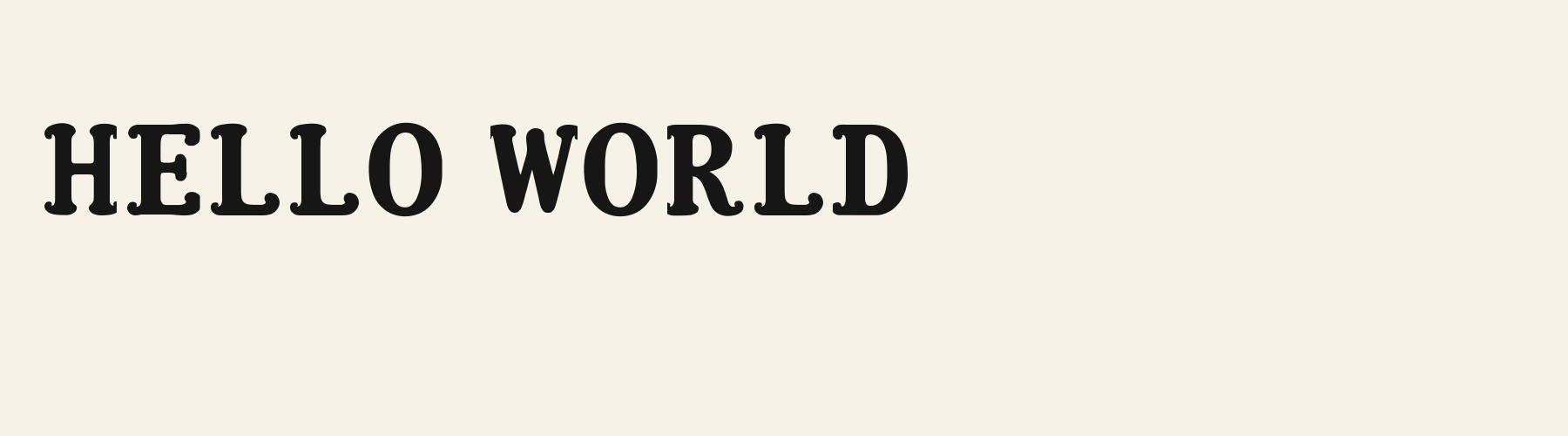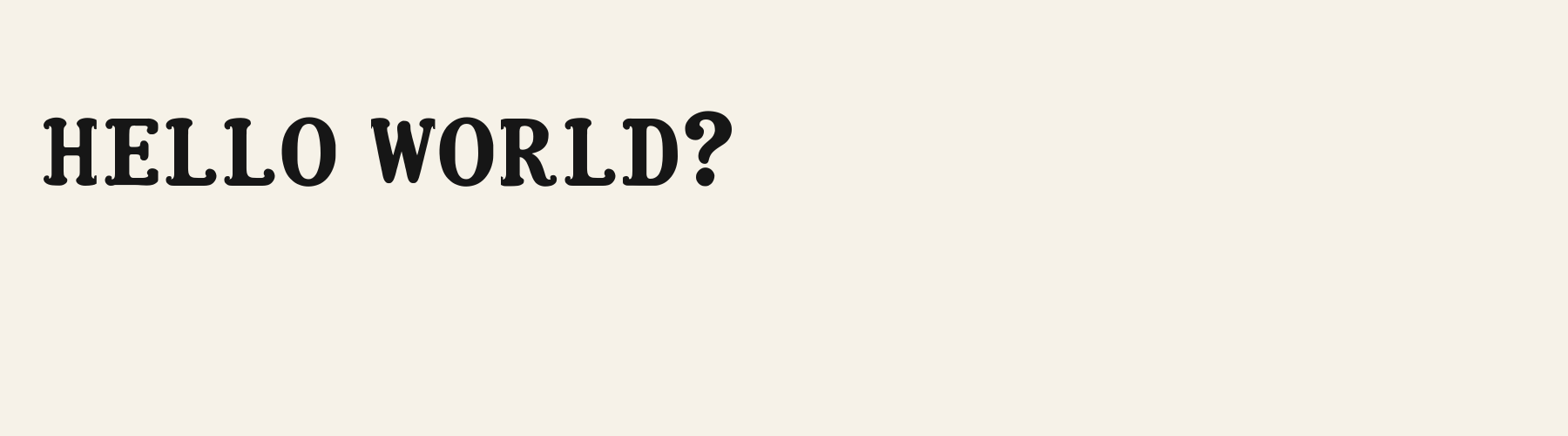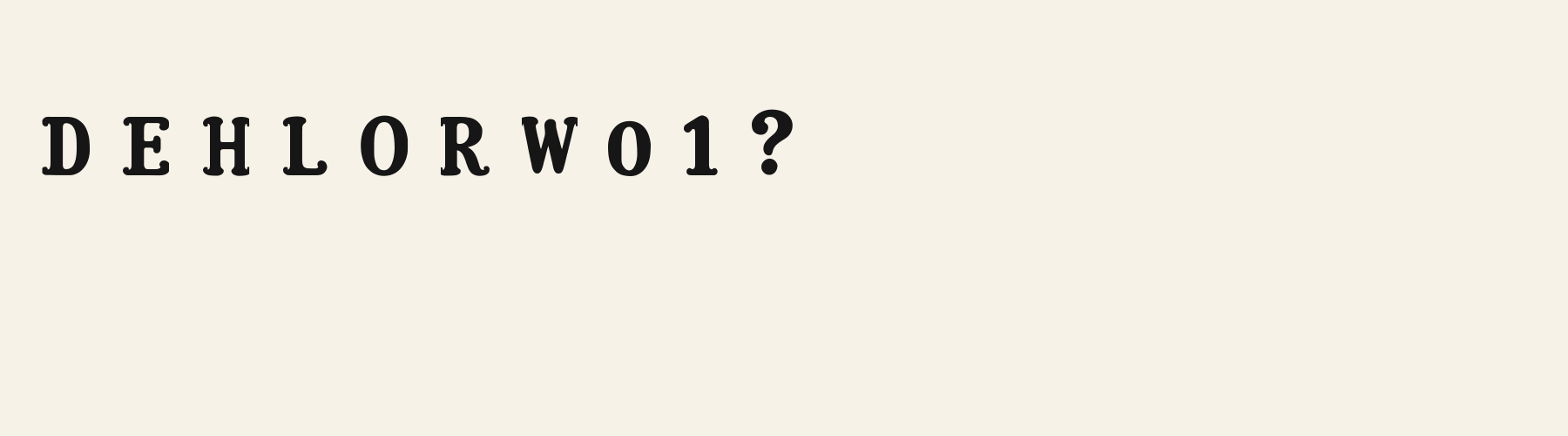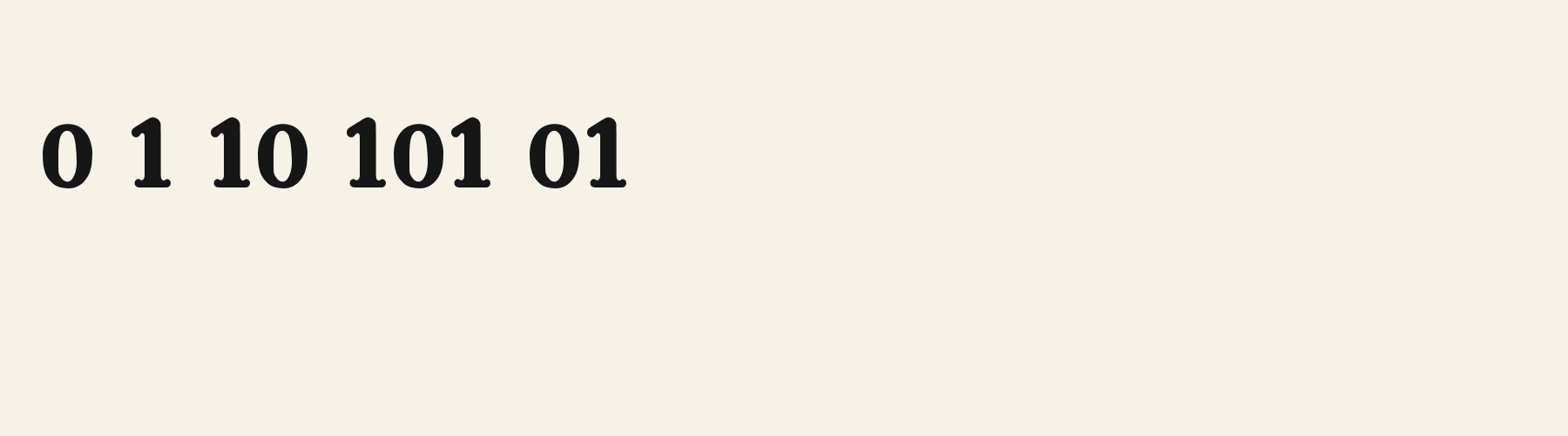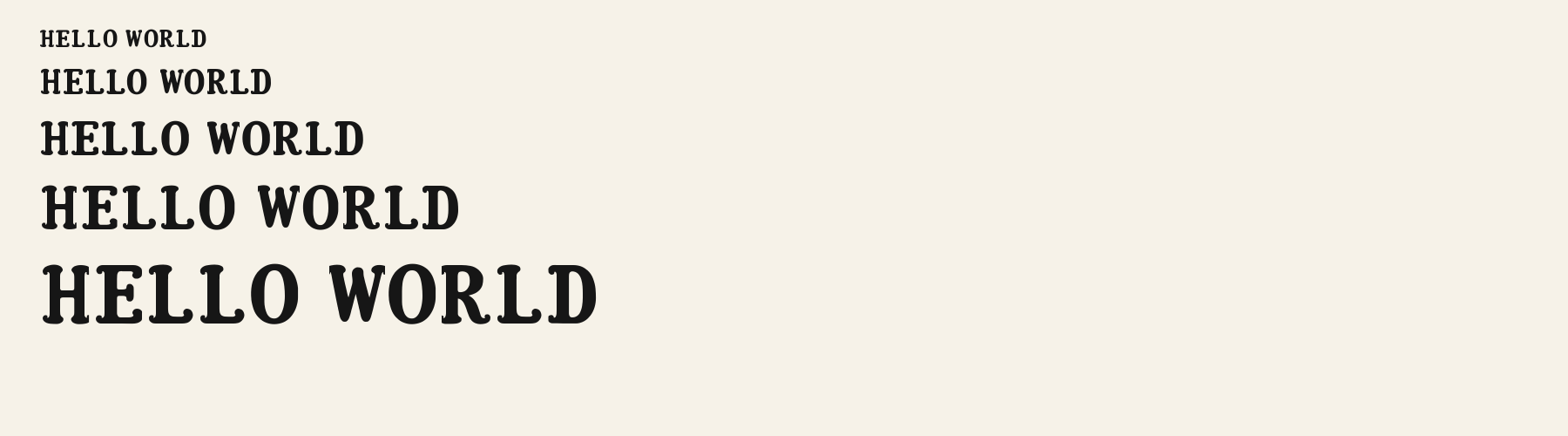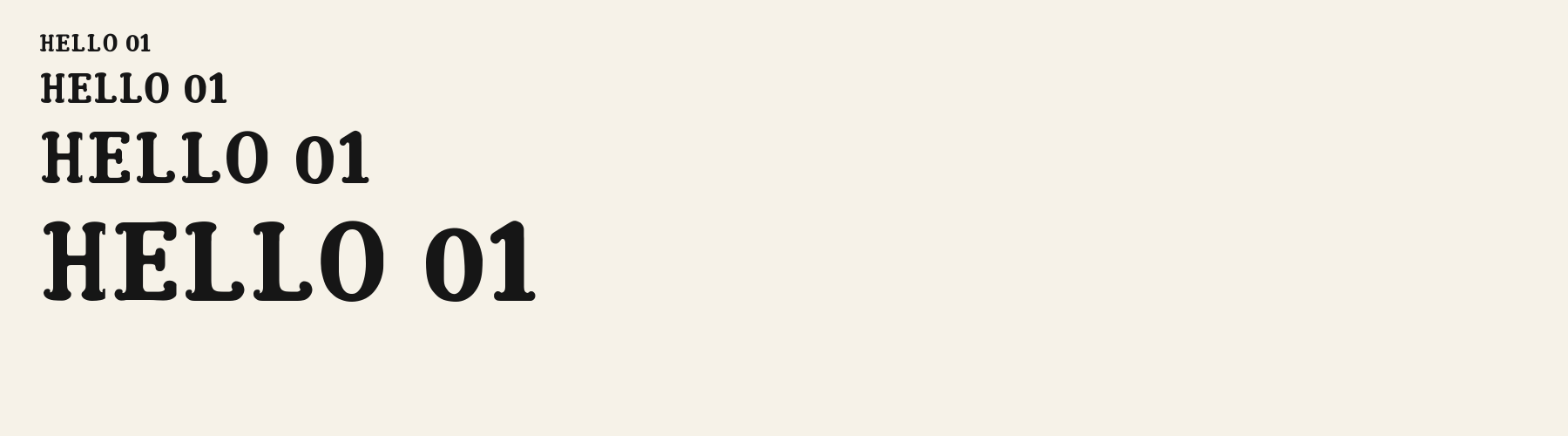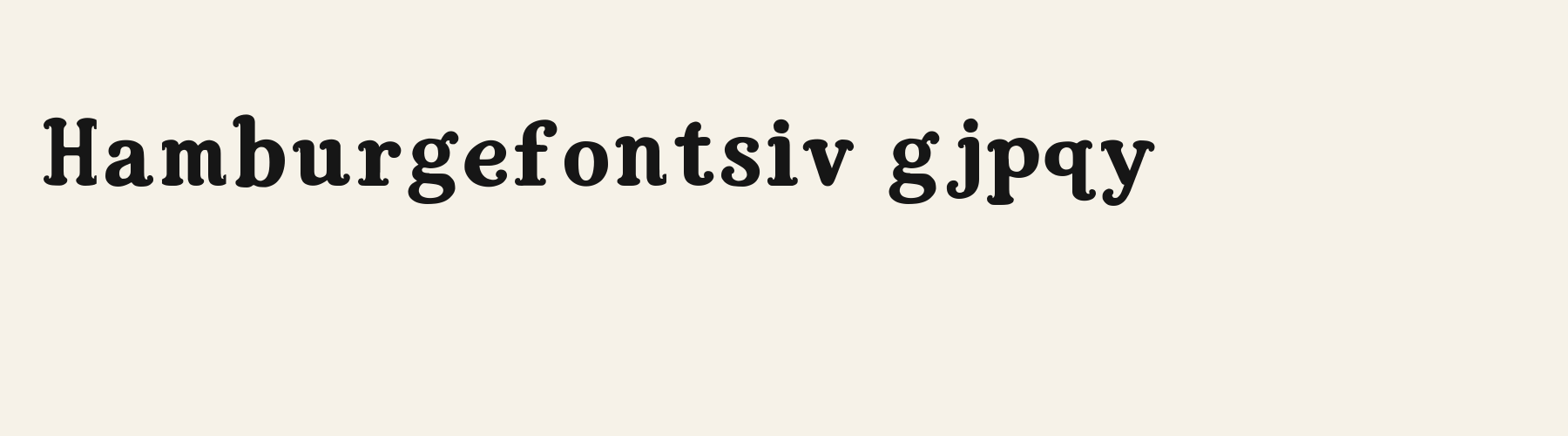
Pretty Ribbon Round
DisplayPretty Ribbon Round
Pretty Bowline Soft is an A gentle display face uses compact inward terminal curls, soft shoulders, and stable baselines; bow-like details never cross the main stem. Soft shoulders and compact inward terminal curls; stroke weight and contrast are not specified in the brief. Best for names, keepsake cards, and friendly branding.